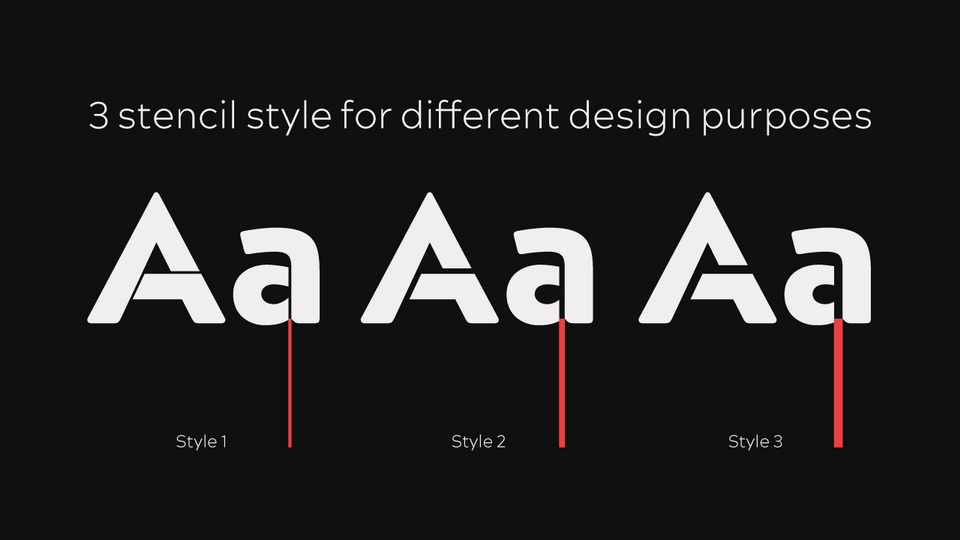
Acherus Militant is a geometric sans serif font family with stencil shapes. A free version includes 2 styles: Acherus 1 in Light and Bold weights, the full family comes with 24 styles.
Acherus Militant is incredibly useful for nearly any creative design.